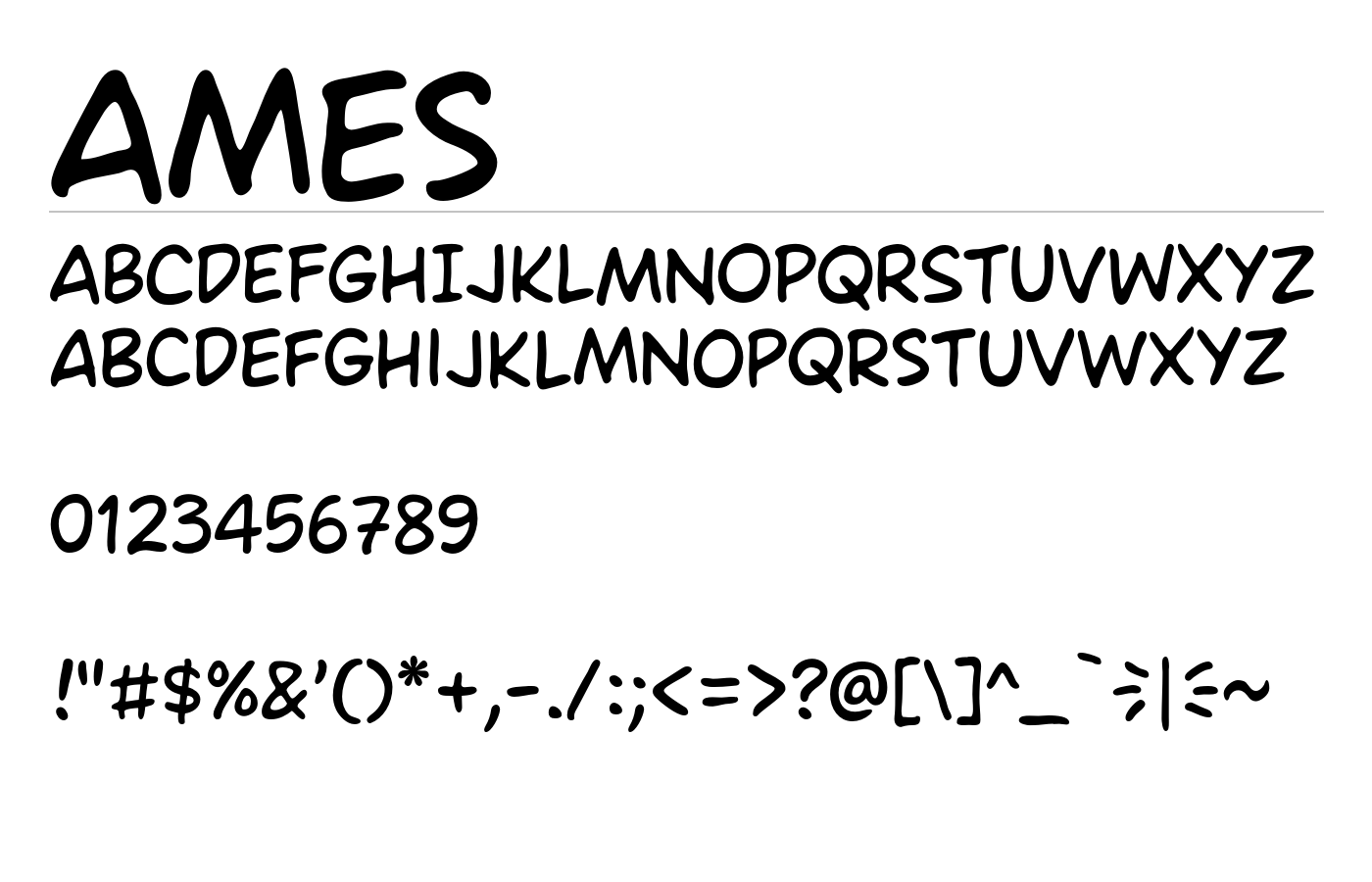
Ames Font is a casual, hand-drawn sans serif with a playful and friendly feel, featuring slightly irregular, rounded letterforms that mimic natural handwriting. Its medium weight and open spacing make it highly readable and approachable, perfect for informal designs, children’s materials, and creative projects that seek a personal, lively touch. This font works well in headlines, logos, and packaging where a warm, energetic, and human vibe is desired.
Ames Font
About Ames Font
| Font family | Ames Font |
| Designer | Pivi Toikka |